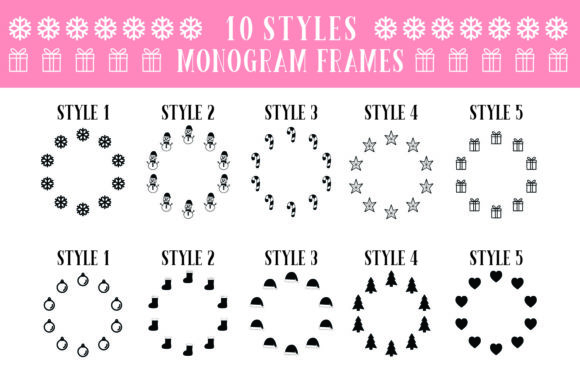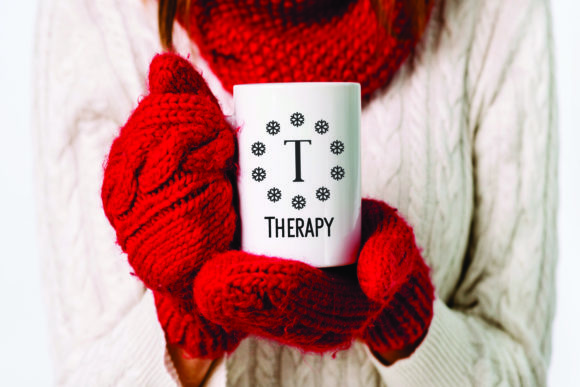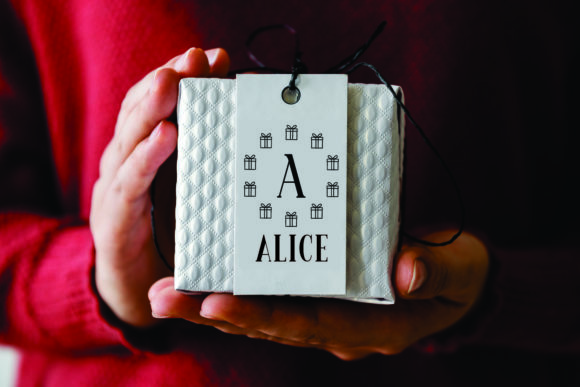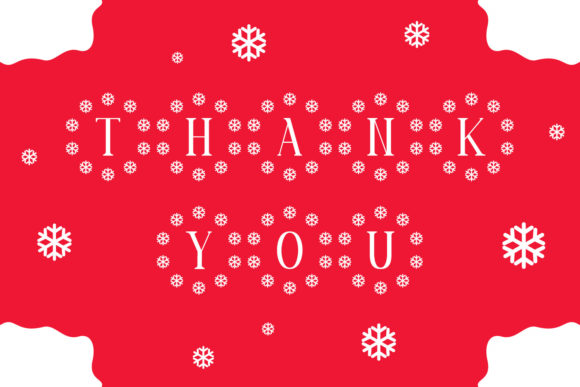
Discover the Magic of Best Part of Christmas Font
The holiday season is upon us, and with it comes the joy of creating special designs, invitations, and letters that capture the essence of Christmas. One of the most crucial elements in making your creations stand out is the font you choose. If you’re looking for a festive, sweet, and unique decorative font to elevate your designs, look no further than the Best Part of Christmas Font.
What Makes Best Part of Christmas Font So Special?
Best Part of Christmas Font is a ravishingly beautiful font that is sure to add a touch of magic to your designs. Its unique and decorative style makes it perfect for a variety of projects, from love letters and wedding invitations to holiday cards and craft projects. With this font, you can create stunning designs that will leave a lasting impression on your loved ones.
Key Features of Best Part of Christmas Font
- Festive and Fun: Best Part of Christmas Font is designed to capture the spirit of the holiday season. Its playful and cheerful style is sure to bring a smile to anyone’s face.
- Unique and Decorative: This font stands out from the crowd with its distinctive and ornate design. It’s perfect for adding a touch of elegance and sophistication to your projects.
- Versatile: Best Part of Christmas Font can be used for a wide range of projects, from digital designs to print materials.
Ideas for Using Best Part of Christmas Font
The possibilities are endless when it comes to using Best Part of Christmas Font. Here are a few ideas to get you started:
- Wedding Invitations: Add a touch of romance and whimsy to your wedding invitations with this beautiful font.
- Holiday Cards: Create stunning holiday cards that will stand out from the crowd with Best Part of Christmas Font.
- Love Letters: Make your love letters extra special with this sweet and festive font.
- Craft Projects: Use Best Part of Christmas Font to add a personal touch to your craft projects, such as scrapbooking, journaling, and more.
Tips for Getting the Most Out of Best Part of Christmas Font
To get the most out of Best Part of Christmas Font, here are a few tips to keep in mind:
- Experiment with Different Sizes: Play around with different font sizes to find the perfect fit for your project.
- Pair it with Other Fonts: Combine Best Part of Christmas Font with other fonts to create a unique and interesting look.
- Use it in Digital Designs: This font is perfect for digital designs, such as social media graphics, blog posts, and more.
Best Part of Christmas Font is a truly special font that is sure to add a touch of magic to your designs. With its festive, sweet, and unique style, it’s perfect for a variety of projects, from love letters and wedding invitations to holiday cards and craft projects. Whether you’re a designer or crafter, this font is sure to inspire you to create something truly special. So why wait? Download Best Part of Christmas Font today and start creating your own holiday magic!